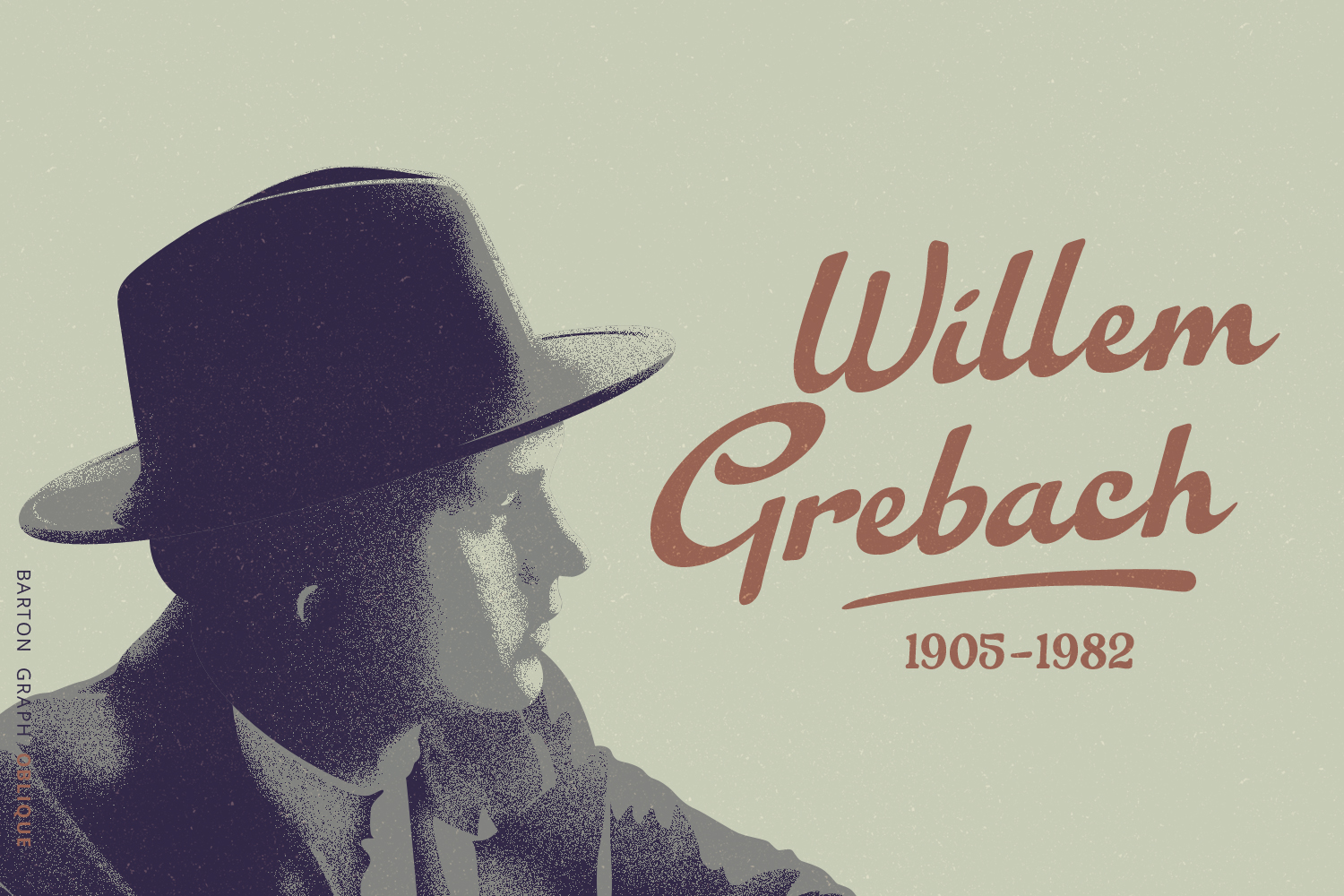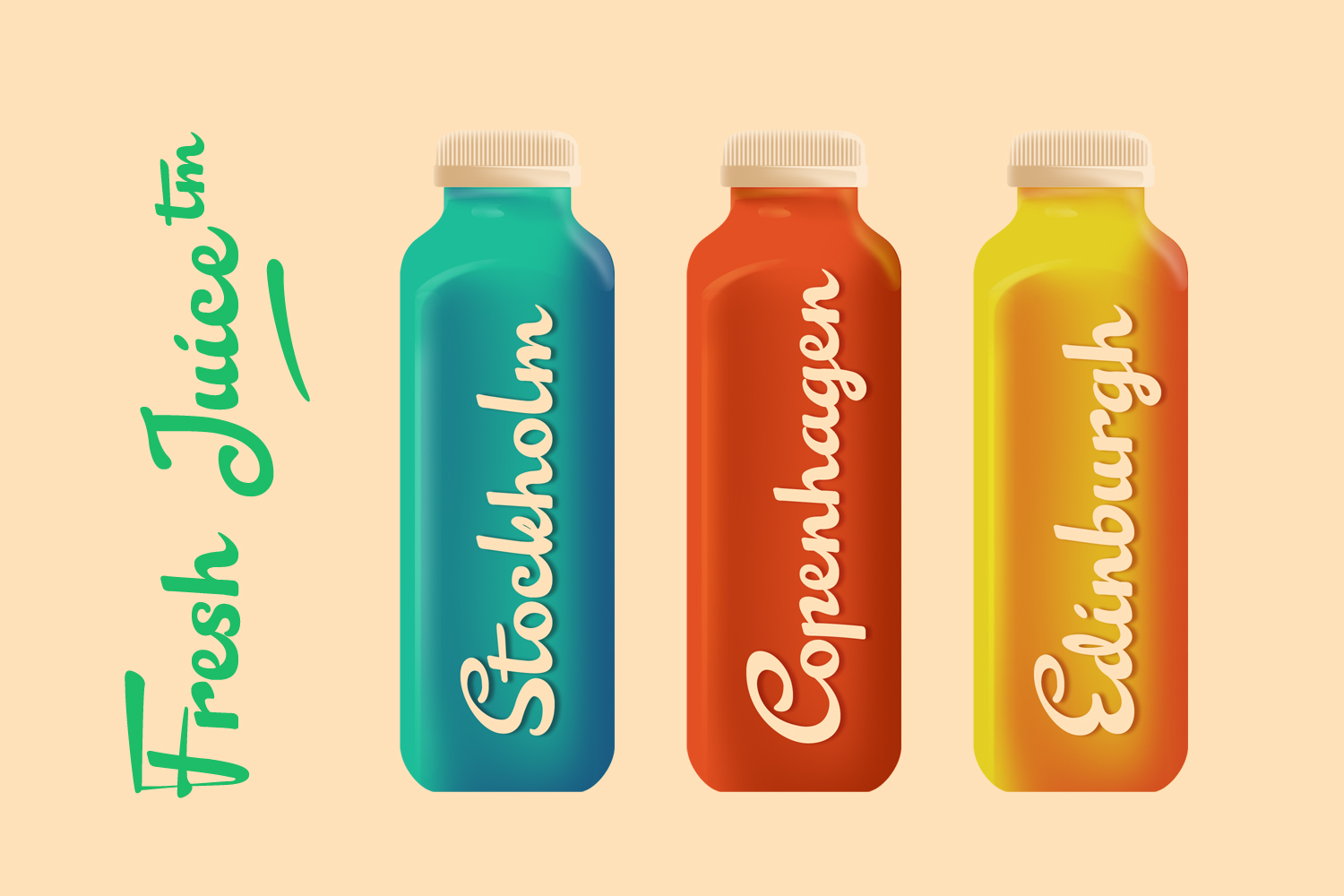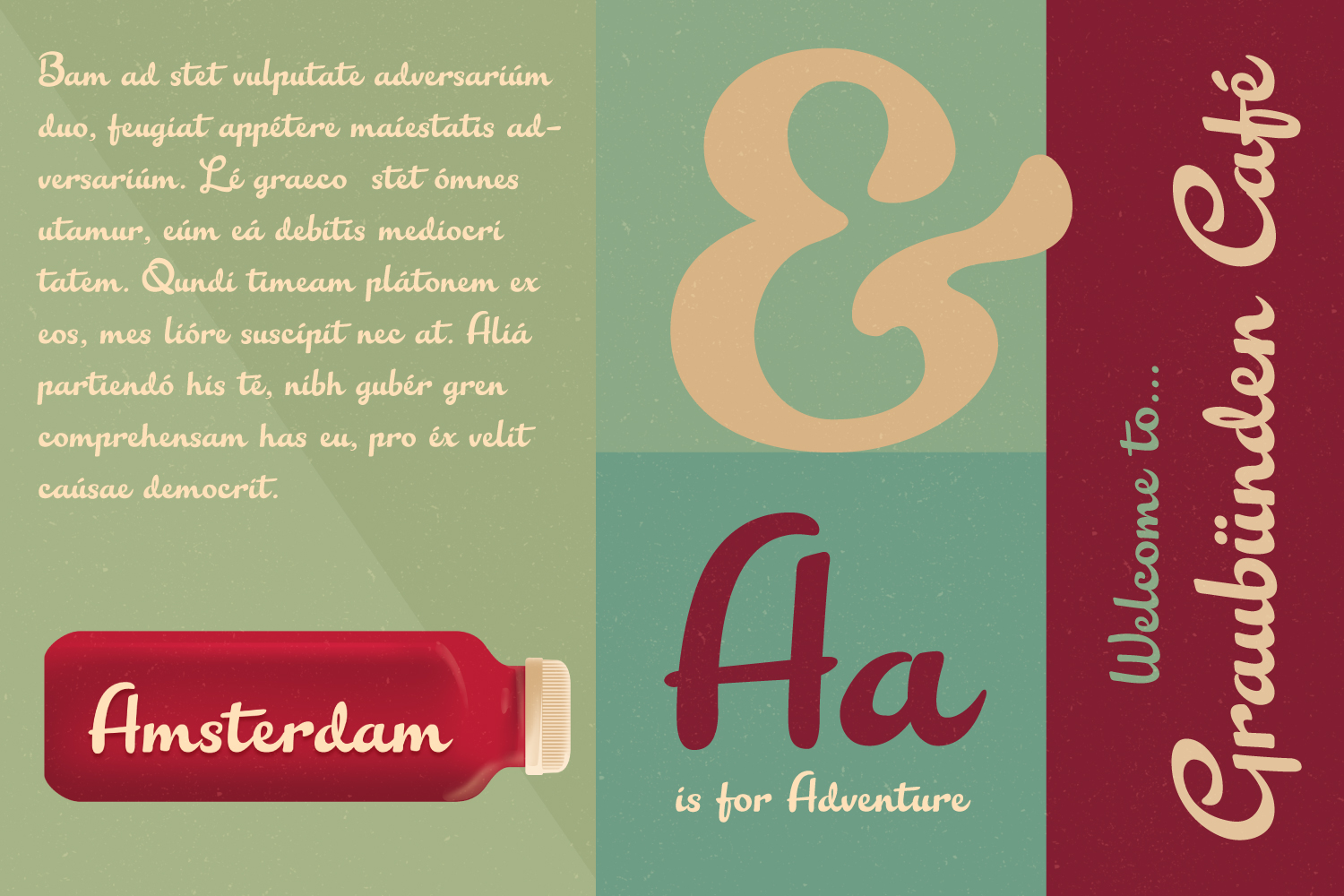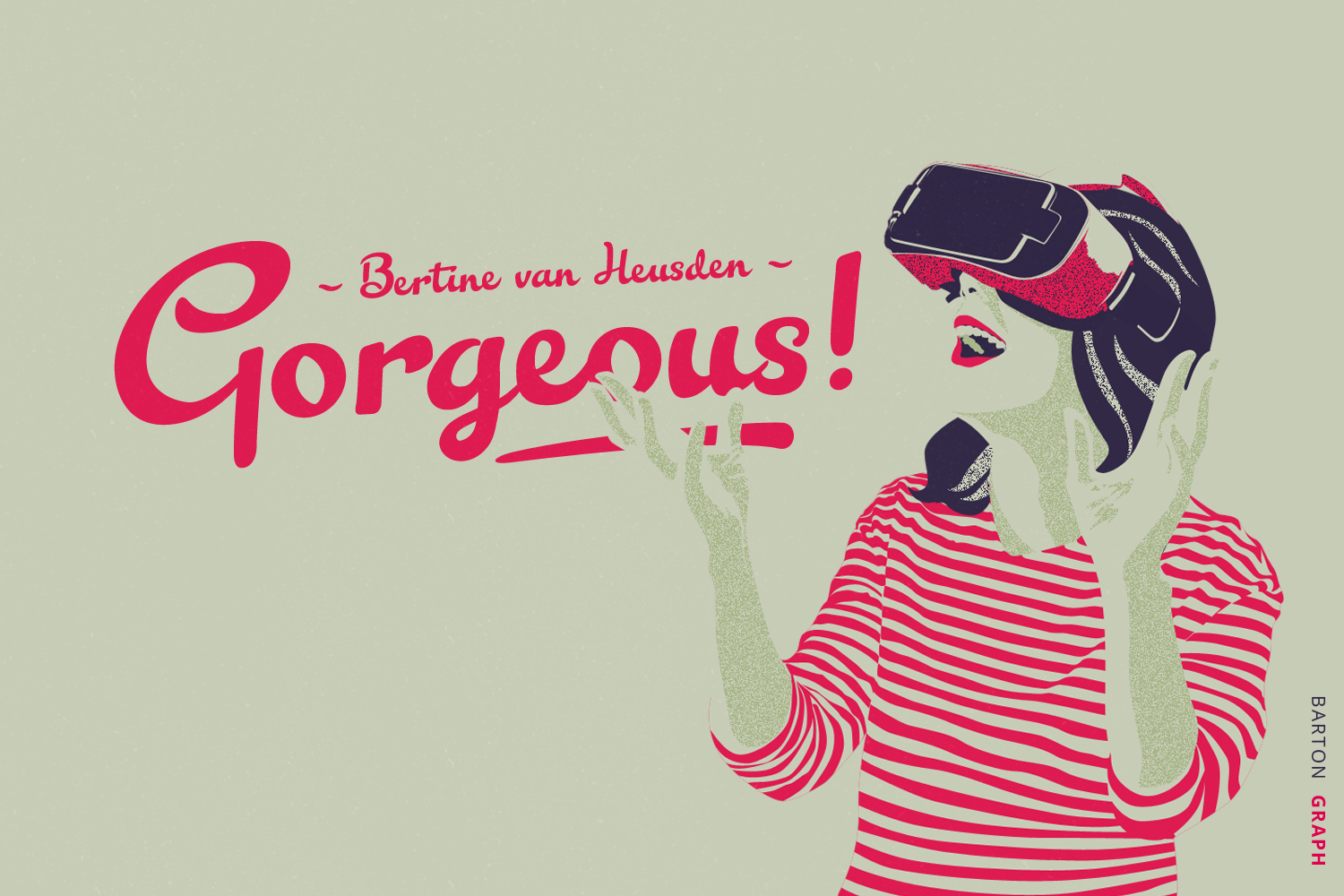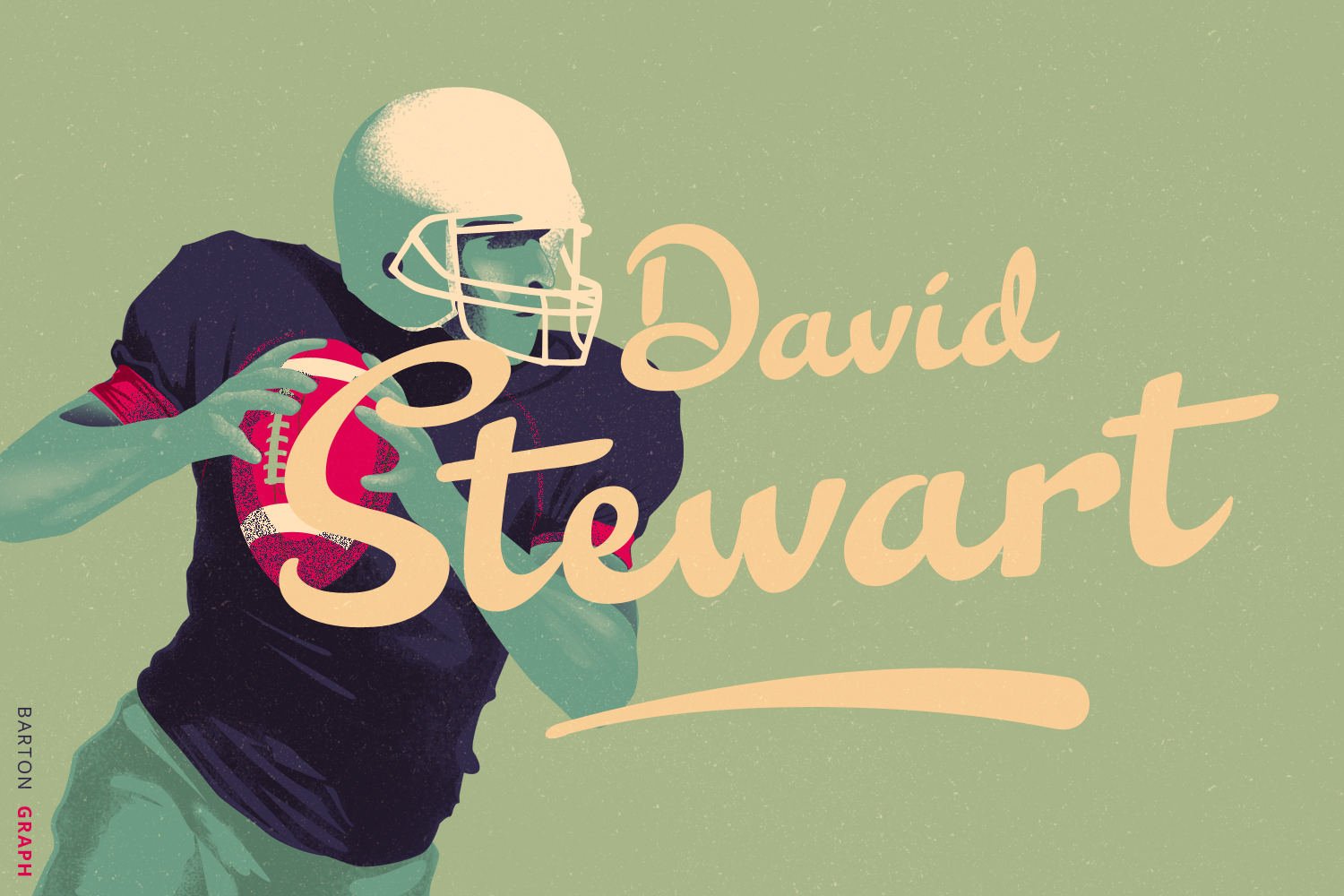
Barton Graph Font: Elevate Your Designs with Elegant Handwriting and Calligraphy
In the world of typography, few fonts manage to capture the essence of classic handwriting and calligraphy as beautifully as the Barton Graph Script Typeface. This stunning font is a versatile and sophisticated addition to any design project, offering a wide range of creative possibilities. Whether you’re a designer, crafty DIY enthusiast, or simply someone who appreciates beautiful typography, the Barton Graph Font is sure to inspire.
The Inspiration Behind Barton Graph
The Barton Graph Script Typeface draws its inspiration from the timeless elegance of classic handwriting and calligraphy. With its flowing lines, intricate details, and rhythmic flair, this font embodies the sophistication and refinement of traditional calligraphic art. The result is a font that exudes warmth, character, and personality, making it perfect for designs that require a touch of elegance and sophistication.
A World of Creative Possibilities
One of the standout features of the Barton Graph Font is its incredible versatility. This font is perfect for a wide range of uses, including:
- Autographs and Signatures: Add a touch of elegance to your digital signatures or create custom autographs for special occasions.
- Book and Album Covers: Stand out from the crowd with eye-catching covers that showcase your creative flair.
- Posters and Advertising: Grab attention with bold, eye-catching typography that demands to be noticed.
- Business Cards and Packaging: Elevate your business cards and packaging with a sophisticated font that reflects your brand’s values and personality.
What Makes Barton Graph Font So Special?
So, what sets the Barton Graph Font apart from other fonts in its class? Here are just a few reasons why designers and crafters love this stunning typeface:
- Unique Character: The Barton Graph Font boasts a unique character that is both elegant and refined, making it perfect for designs that require a touch of sophistication.
- Highly Versatile: With its wide range of uses, this font is perfect for designers and crafters who need a single font that can handle multiple projects.
- Ease of Use: The Barton Graph Font is easy to use and integrate into your designs, making it perfect for designers of all skill levels.
- Timeless Appeal: Unlike trendy fonts that quickly go out of style, the Barton Graph Font has a timeless appeal that will remain relevant for years to come.
Tips for Getting the Most Out of Barton Graph Font
To get the most out of the Barton Graph Font, here are a few tips to keep in mind:
- Experiment with Different Sizes: The Barton Graph Font looks great in a variety of sizes, so don’t be afraid to experiment and find the perfect size for your design.
- Play with Color: The Barton Graph Font comes in a range of colors, so try experimenting with different hues and shades to add depth and interest to your design.
- Mix and Match: Don’t be afraid to mix and match the Barton Graph Font with other fonts to create a unique and eye-catching design.
In conclusion, the Barton Graph Script Typeface is a stunning font that offers a world of creative possibilities for designers and crafters. With its elegant handwriting and calligraphy-inspired design, this font is perfect for a wide range of uses, from logos and branding to book covers and advertising. Whether you’re a seasoned designer or just starting out, the Barton Graph Font is sure to inspire and elevate your designs to new heights.